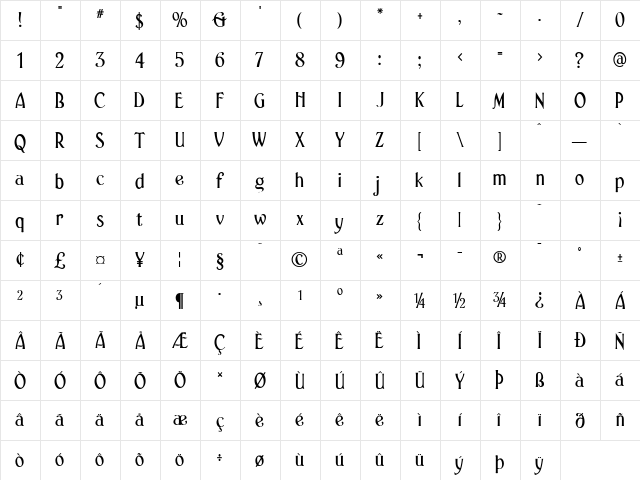
Holmes Regular
Design Context for Holmes Typeface
Holmes is a composed and adaptable typeface that performs quietly and consistently across a wide range of design contexts.